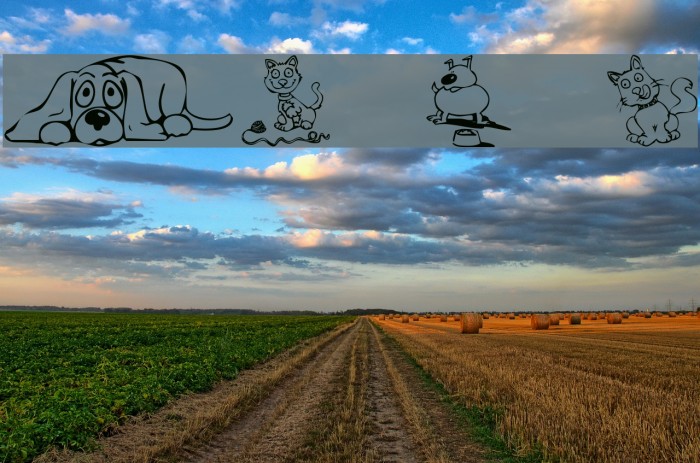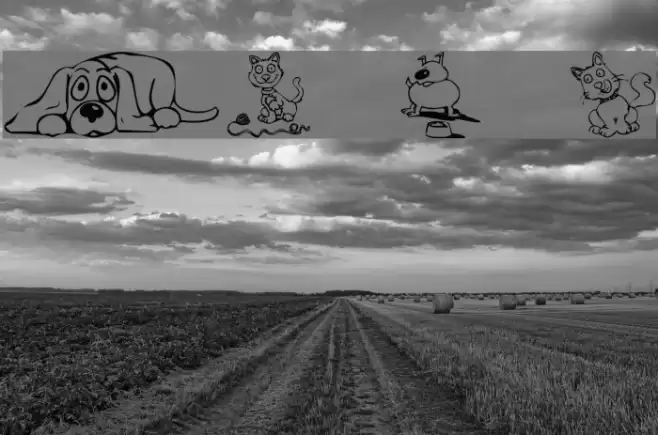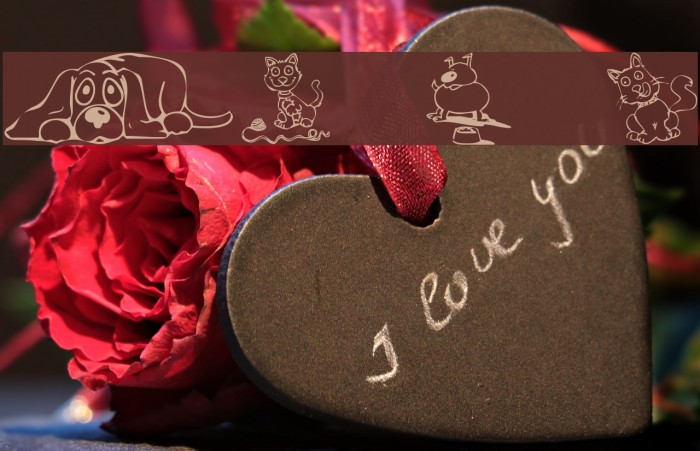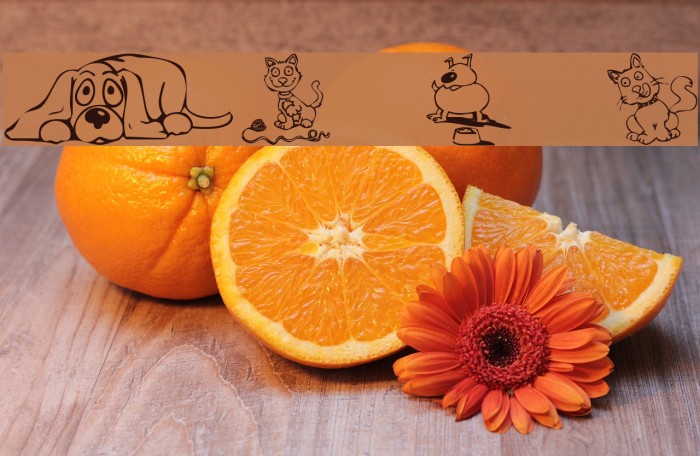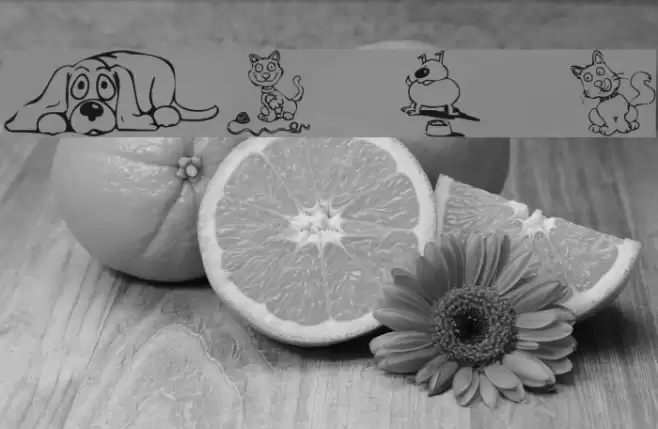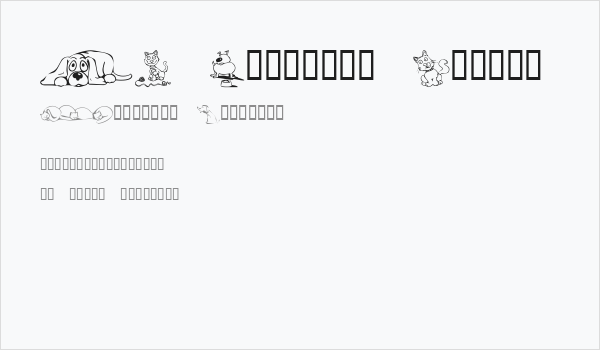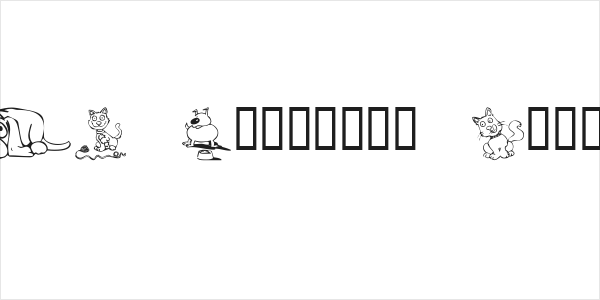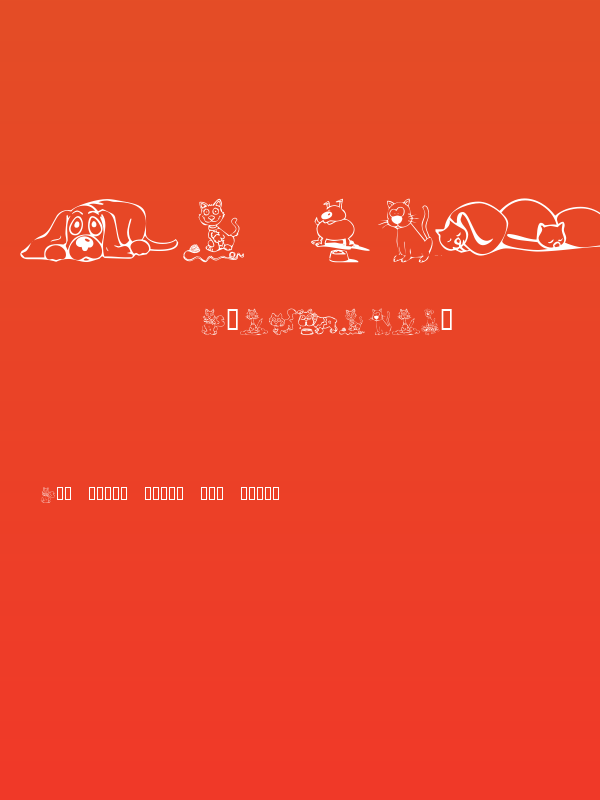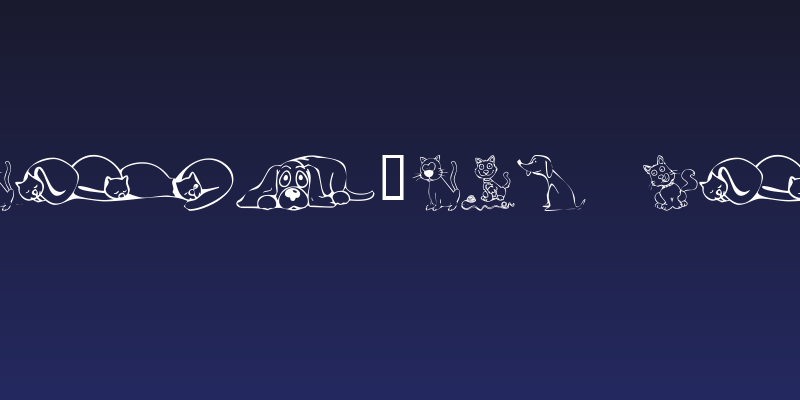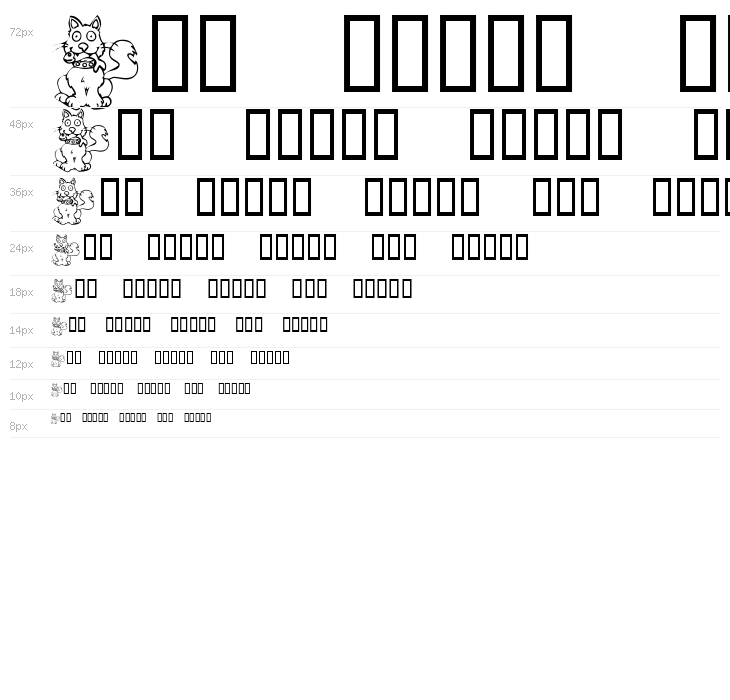
KR Backyard Scraps Font
KR Backyard Scraps Description
This is a playful and whimsical font featuring a series of cartoon-style illustrations of animals, primarily cats and dogs. Each character is represented by a unique and humorous depiction of these animals in various poses and activities, such as lounging, playing, and interacting with each other. The style is light-hearted and fun, making it ideal for projects that require a touch of humor and creativity. The illustrations are detailed yet simple, capturing the essence of backyard antics with a charming and approachable aesthetic.
| Use Case | Decorative elements, Illustrative projects |
| Proposed Projects | Ideal for children's books, playful greeting cards, pet-related branding, or any project that benefits from a fun and light-hearted touch. |